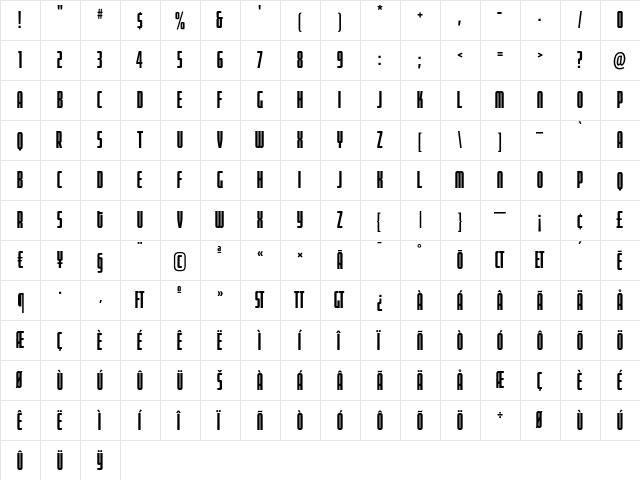
MorganTw2 Regular
Design Context for MorganTw2 Typeface
MorganTw2 takes a measured approach to typography — its balanced proportions and neutral character make it a reliable workhorse for both digital and print work.